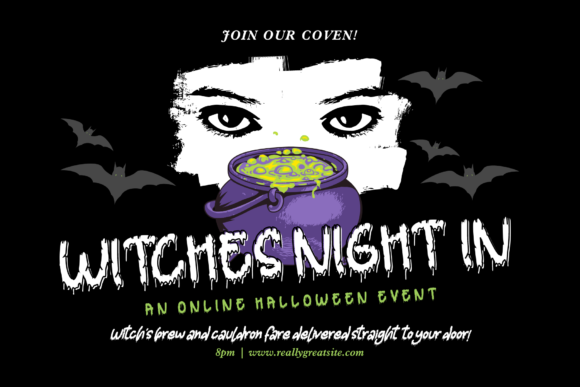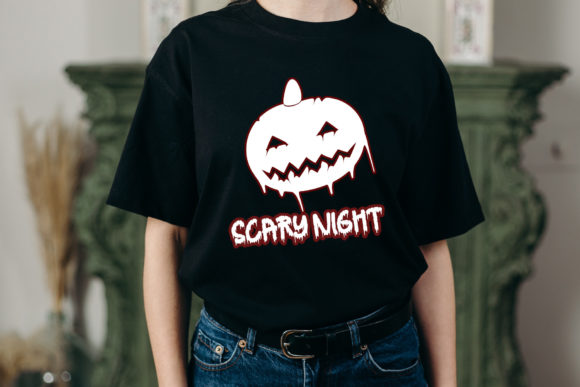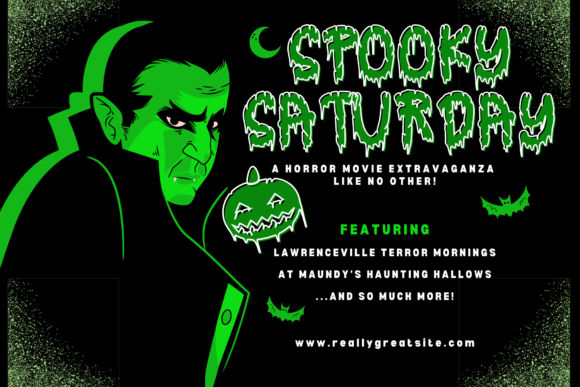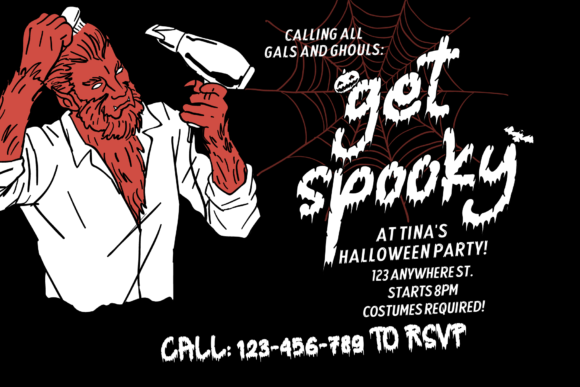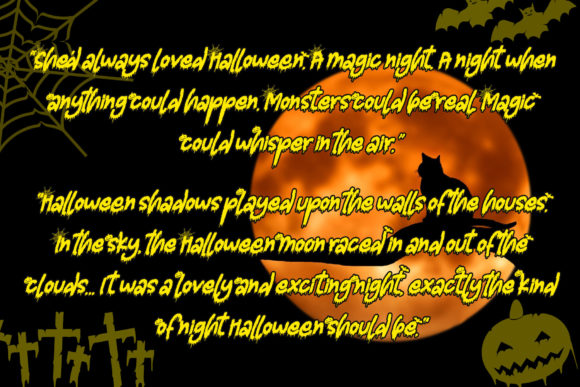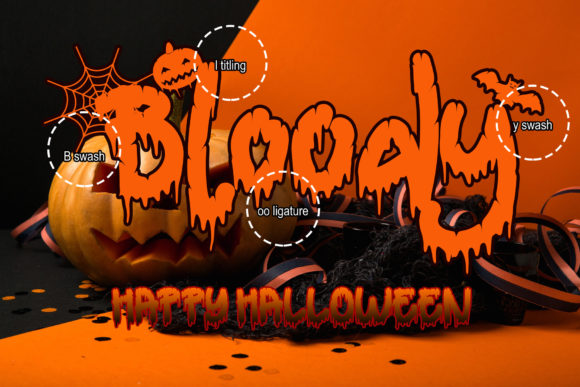
The Perfect Font for a Spooky Season
It’s that time of the year when creativity runs wild, and our designs come alive with a dash of spookiness. As designers, we’re always on the lookout for that one element that makes our work stand out from the rest. For me, it was when I stumbled upon the Blood Shadow Font – a cool and creepy display font that instantly elevated my Halloween designs.
The Blood Shadow Font is a game-changer for designers who want to add an eerie touch to their work. With its wide range of glyphs and swashes, this PUA-encoded font is a breeze to use. Whether you’re creating spooky invitations, eerie posters, or haunting typography, the Blood Shadow Font is sure to add an extra layer of depth to your designs.
Blood Shadow Font Key Features
- Unique Characteristics: Blood Shadow Font features a unique blend of gothic and horror elements, with intricate details and ornate designs, making it perfect for dark-themed projects, such as horror movies, video games, and fiction novels.
- Font Style: Gothic, Horror, Decorative, Script
Blood Shadow Font Review
I recently had the chance to work with the Blood Shadow Font, and I must say it’s an interesting addition to any design project. ✨ One of the things that really stood out to me was the font’s unique blend of eerie and mysterious vibes. It’s perfect for anything that needs a touch of darkness or foreboding.
- Unique aesthetic: Blood Shadow Font has a distinctive, gothic-inspired design that’s sure to make your project stand out.
- High contrast: The bold, dark lines and subtle texture create a great contrast that’s perfect for drawing attention.
- Font pairing options: Blood Shadow Font works well with a variety of other fonts, making it easy to create a cohesive design.
That being said, there are a few limitations to keep in mind. ⚠️ The font’s darkness can sometimes make it difficult to read, especially for smaller text sizes. Additionally, the bold lines can feel a bit overwhelming if used excessively.
Overall, I think Blood Shadow Font is a solid choice for designers who want to add some edge to their project. While it may not be perfect for every design, its unique aesthetic and high contrast make it a great option for the right project.
The Blood Shadow font is perfect for creating dramatic and edgy designs. Use it for:
1. Horror movie posters and promotional materials.
2. Dark-themed social media graphics and advertisements.
3. Grunge-inspired music album art and merchandise.